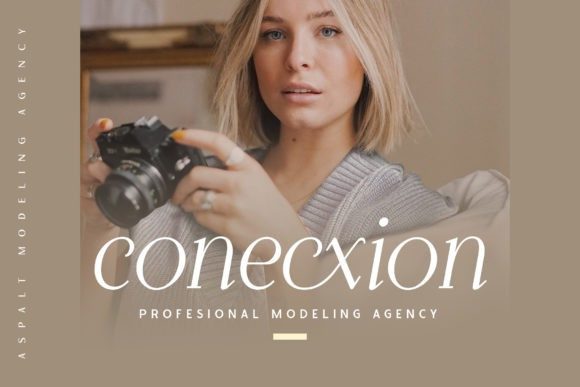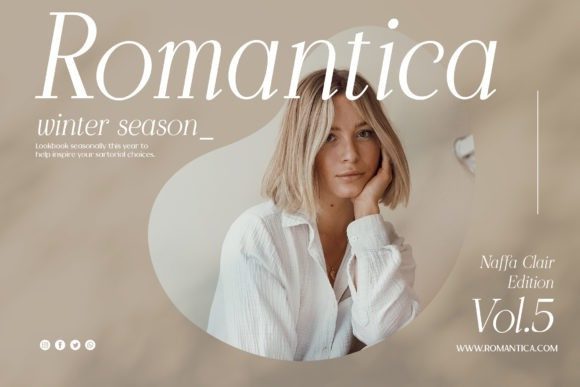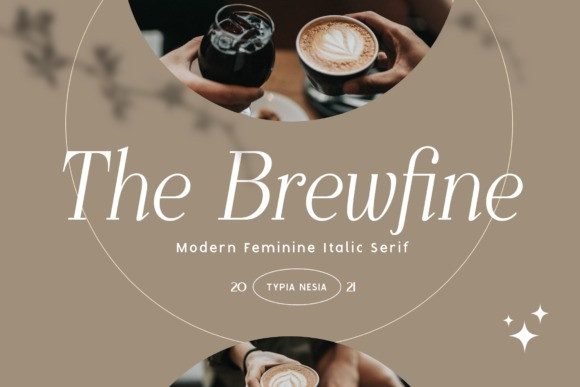
The Brewfine Font
The Brewfine Font is a stylish and authentic serif font. It will elevate a wide range of crafting ideas, from cards, to branding, labels and much more.Add it confidently to your favorite creations and let yourself be amazed by the outcome generated.